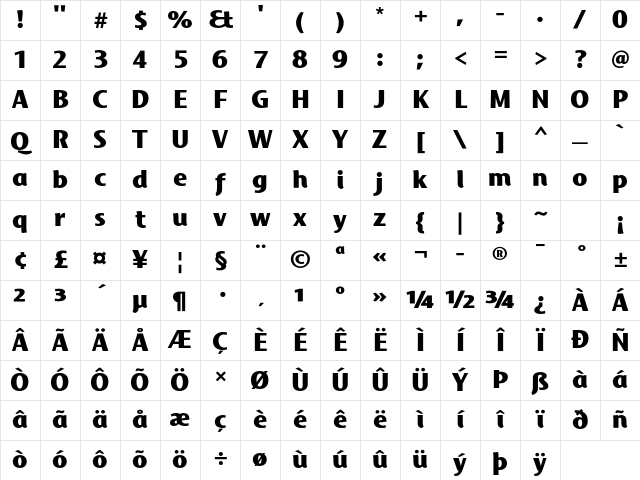
Mosquito Std Black
Design Context for Mosquito Std
Mosquito Std is a composed and adaptable typeface that performs quietly and consistently across a wide range of design contexts.